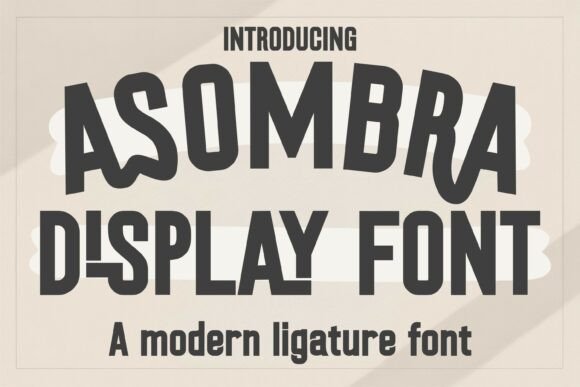
You know that feeling when your creative idea suddenly sparks, and you can’t wait to bring it to life? The rush of excitement, the thrill of possibility – it’s a moment that never gets old. And what if I told you that there’s a secret ingredient that can take your design to the next level, making it stand out in a crowd and demand attention? Enter the Asombra Font, a game-changing typographical sensation that’s about to revolutionize your creative projects.
Asombra Font is more than just a font – it’s a statement piece, a bold declaration that screams confidence and energy. With its daring range of tall, bold sans-serif block letters, it’s the perfect companion for designers, educators, and DIY creatives who want to make a lasting impact. Whether you’re crafting classroom materials, designing logos, or creating Procreate graphics, Asombra Font is your go-to secret weapon that’s guaranteed to bring character and spunk to every project.
Asombra Font Key Features
- Unique Characteristics: Asombra Font features a unique, hand-drawn design with intricate details and a touch of elegance.
Designer Review: Asombra Font
Overall, I’m impressed with the Asombra Font, but like any font, it has its strengths and weaknesses. ✨ One thing that works well is its unique and bold aesthetic. The font is perfect for adding a touch of sophistication and elegance to any design project. The bold lines and geometric shapes give it a modern and trendy feel that’s hard to resist.
Another strength of the Asombra Font is its versatility. It comes in a range of weights, from light to heavy, making it suitable for a variety of applications, from body text to headlines. The font also supports multiple languages, which is a bonus for designers working on international projects.
- ⚠️ Limited legibility in small text sizes: While the font is great for headlines, it can be difficult to read in smaller text sizes. This might make it less suitable for body text or other situations where legibility is crucial.
- ⚠️ Limited support for certain languages: Although the font supports multiple languages, it may not support certain languages or characters as well as other fonts.
Overall, the Asombra Font is a great addition to any designer’s toolkit. While it has some limitations, its unique aesthetic and versatility make it a great choice for a wide range of design projects.
The Asombra font is ideal for:
Creating bold and eye-catching headings for marketing materials, websites, and social media.
Designing modern and elegant logos, business cards, and letterheads.
Adding a touch of sophistication to your presentations, reports, and documents.